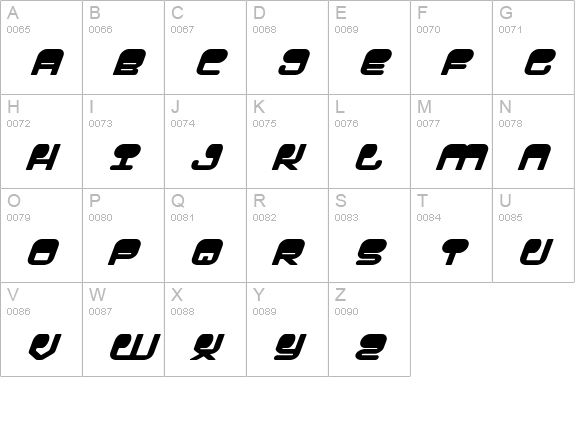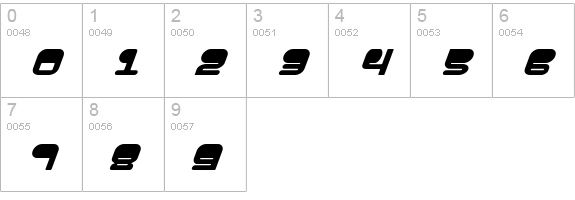
HYPNO Agent Italic is a distinctive, italic variant in the HYPNO typeface family \xE2\x80\x94 well suited to design and typography projects.
Unleash the mesmerizing power of HYPNO Agent Italic font, a captivating and dynamic typeface that will hypnotize your audience with its sleek and modern design. Featuring elegant curves and bold strokes, HYPNO Agent Italic exudes a sense of sophistication and creativity, making it the perfect choice for projects that demand attention and style. This versatile font is ideal for a wide range of design applications, from branding and advertising to packaging and editorial design. Whether you're looking to make a bold statement or add a touch of elegance to your project, HYPNO Agent Italic is sure to impress. Best of all, HYPNO Agent Italic is freely available to download at FontsMarket.com, allowing you to access its captivating charm and unique flair without any cost. Elevate your designs and captivate your audience with HYPNO Agent Italic font today!